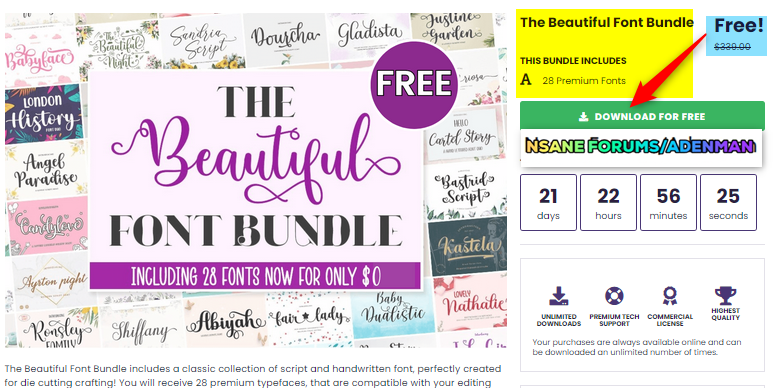
The Beautiful Font Bundle
The Beautiful Font Bundle includes a classic collection of script and handwritten font, perfectly created for die cutting crafting! You will receive 28 premium typefaces, that are compatible with your editing software as well as with your crafting machine. A lifetime commercial license is included, making the fonts ideal to use for your commercial projects.